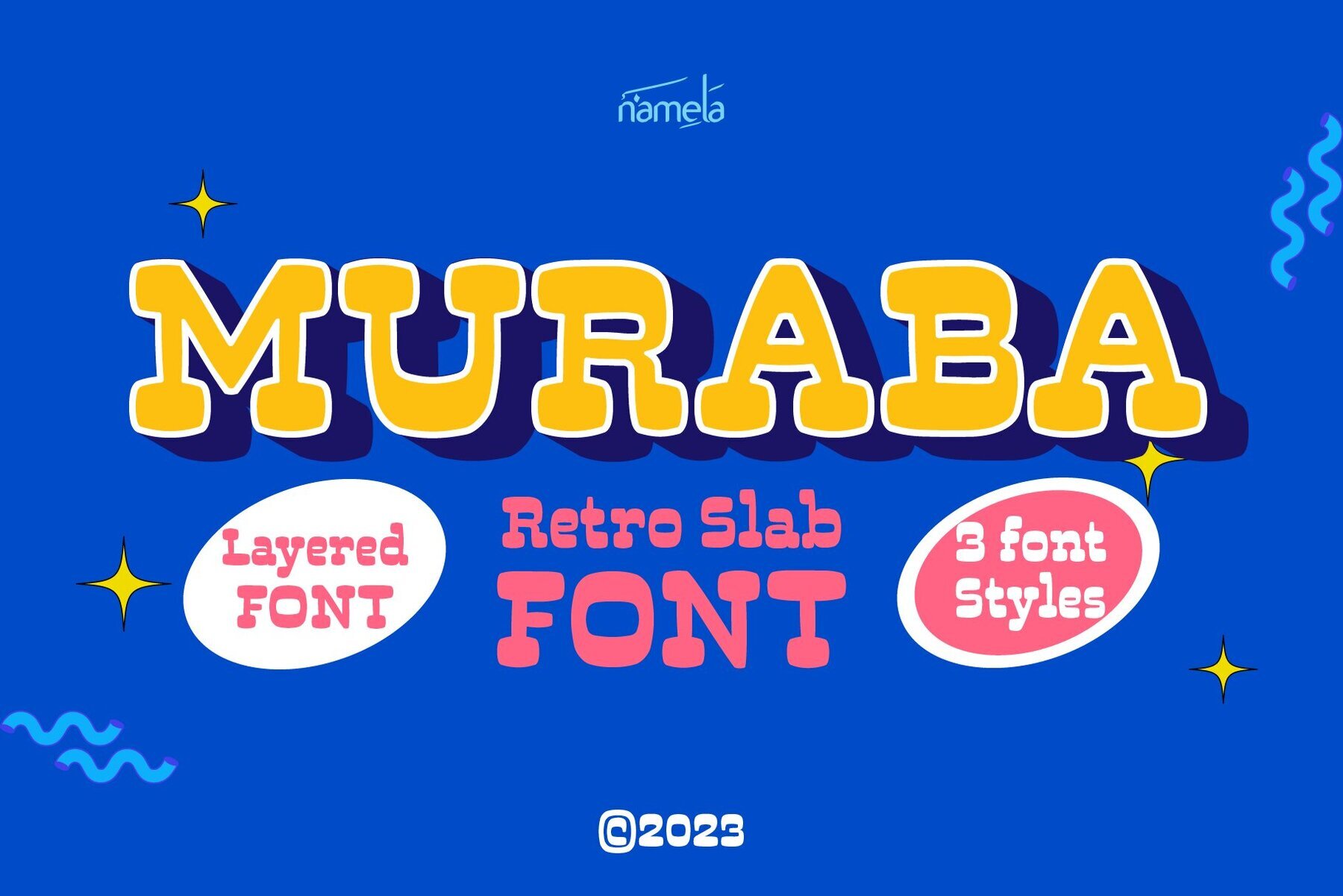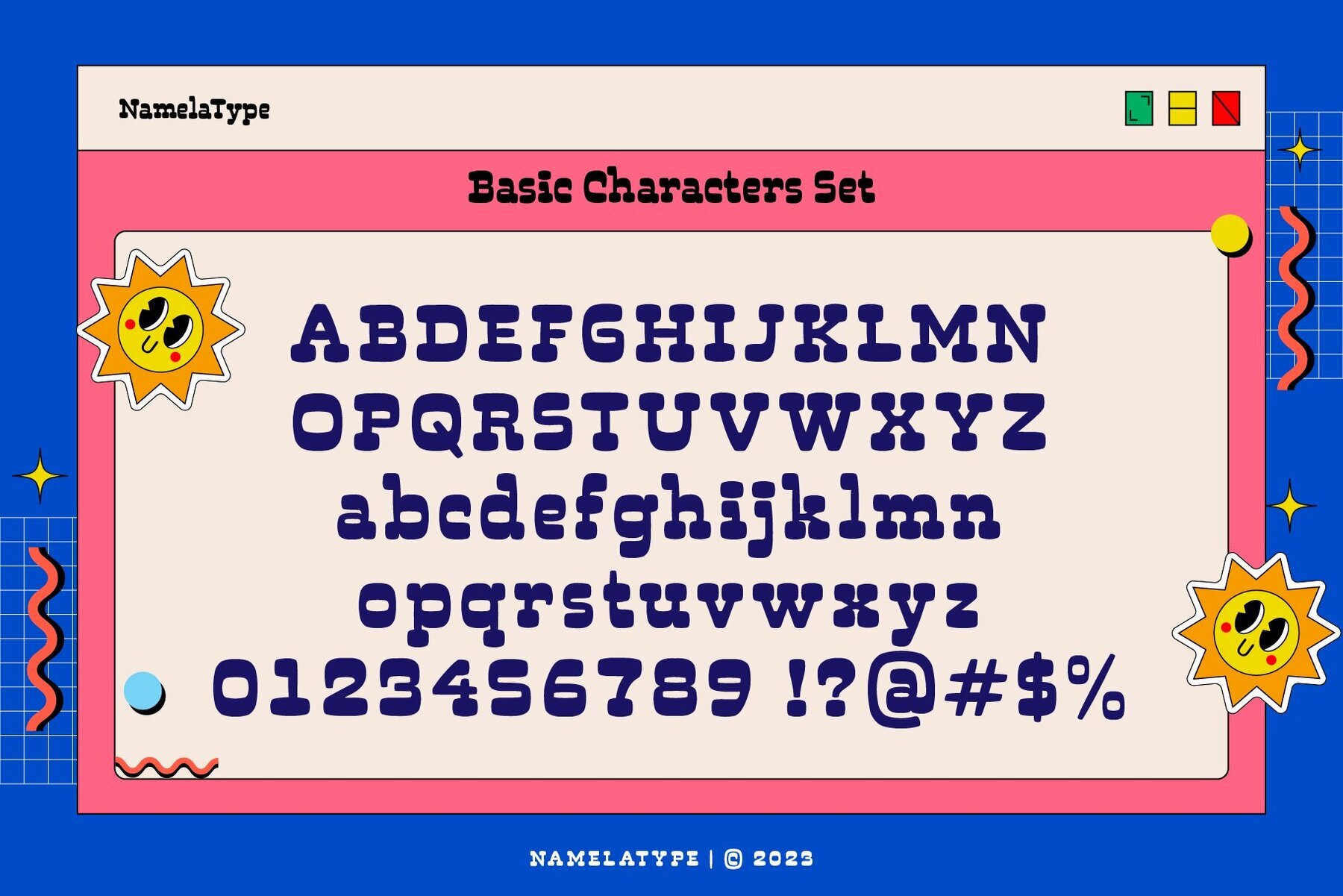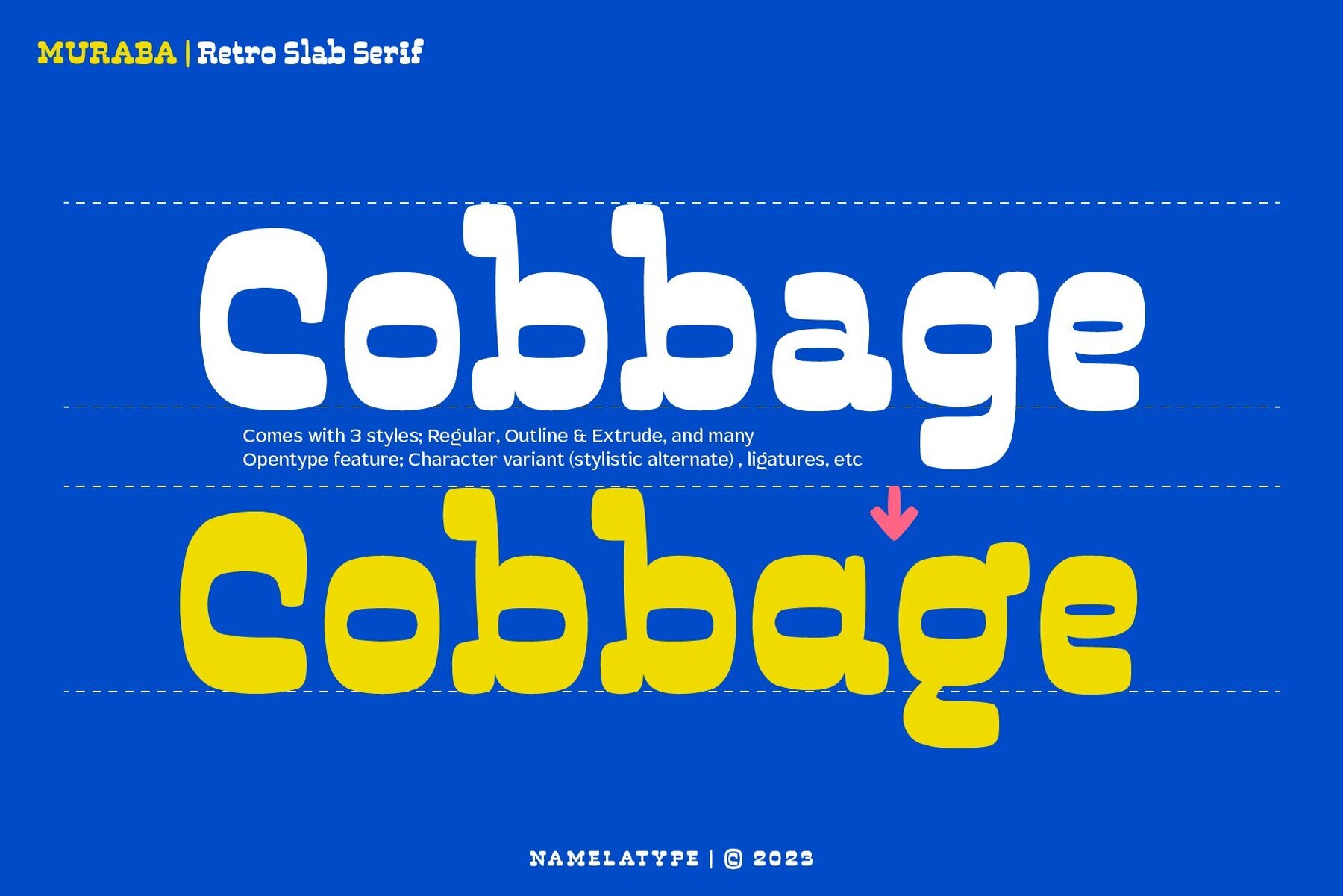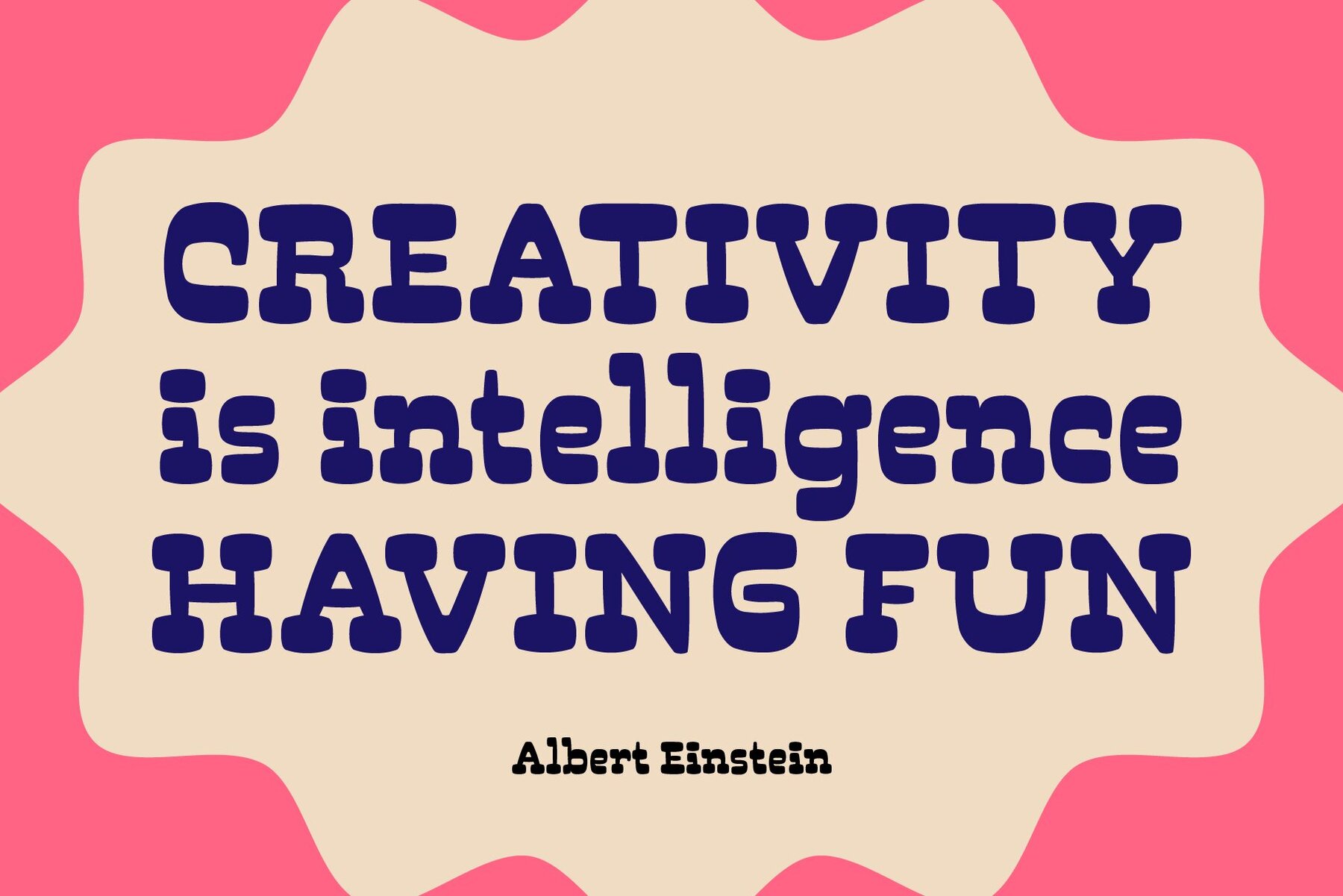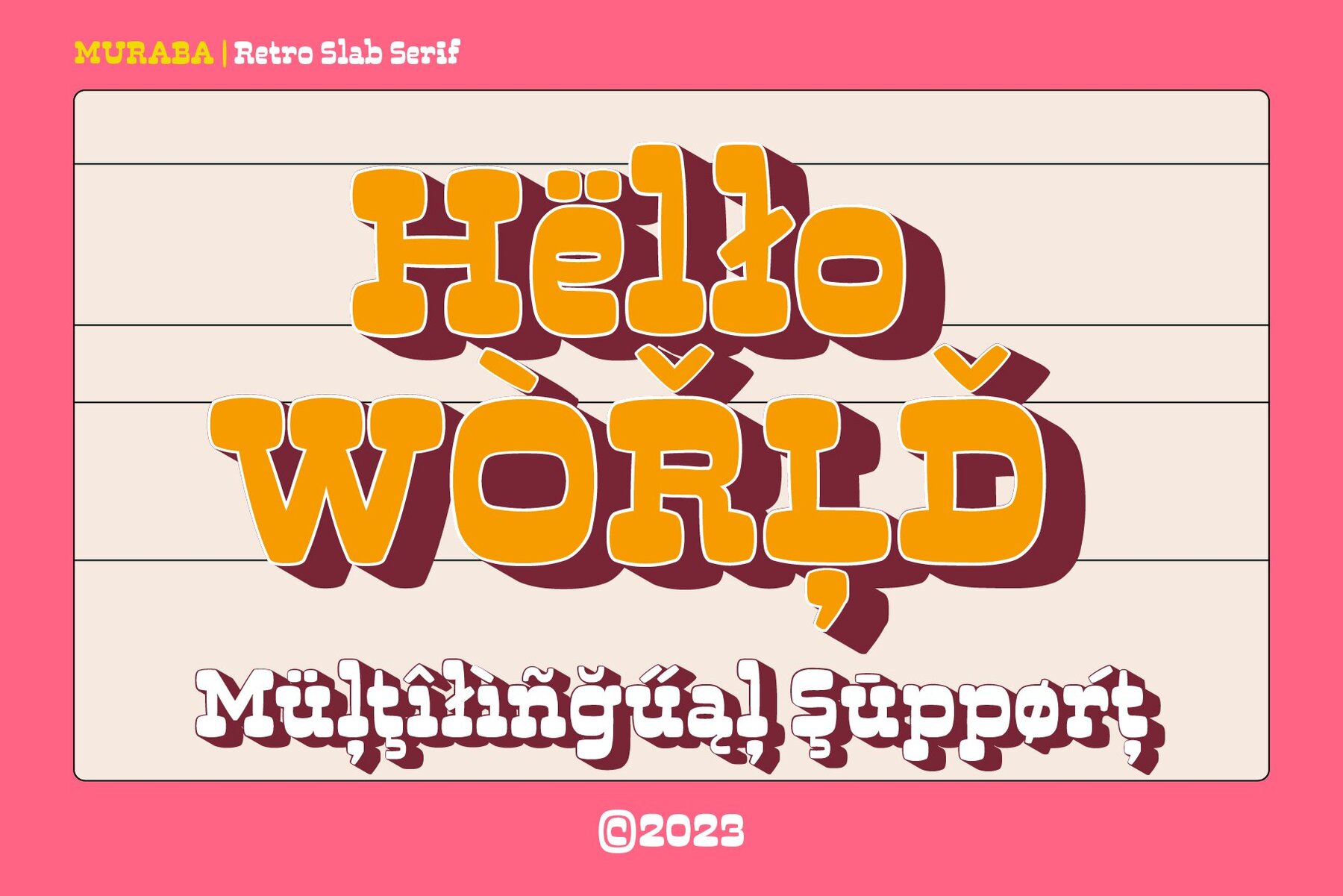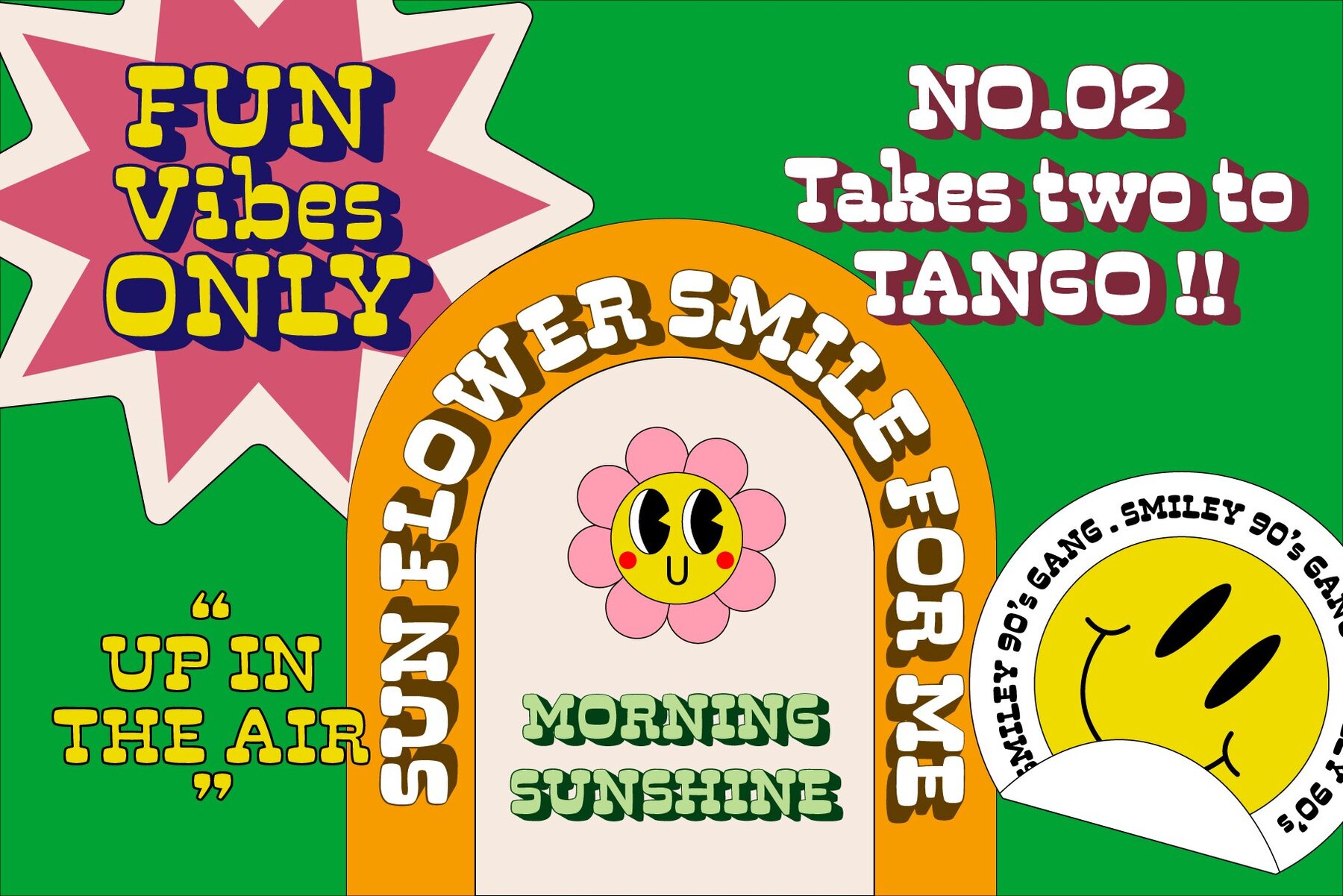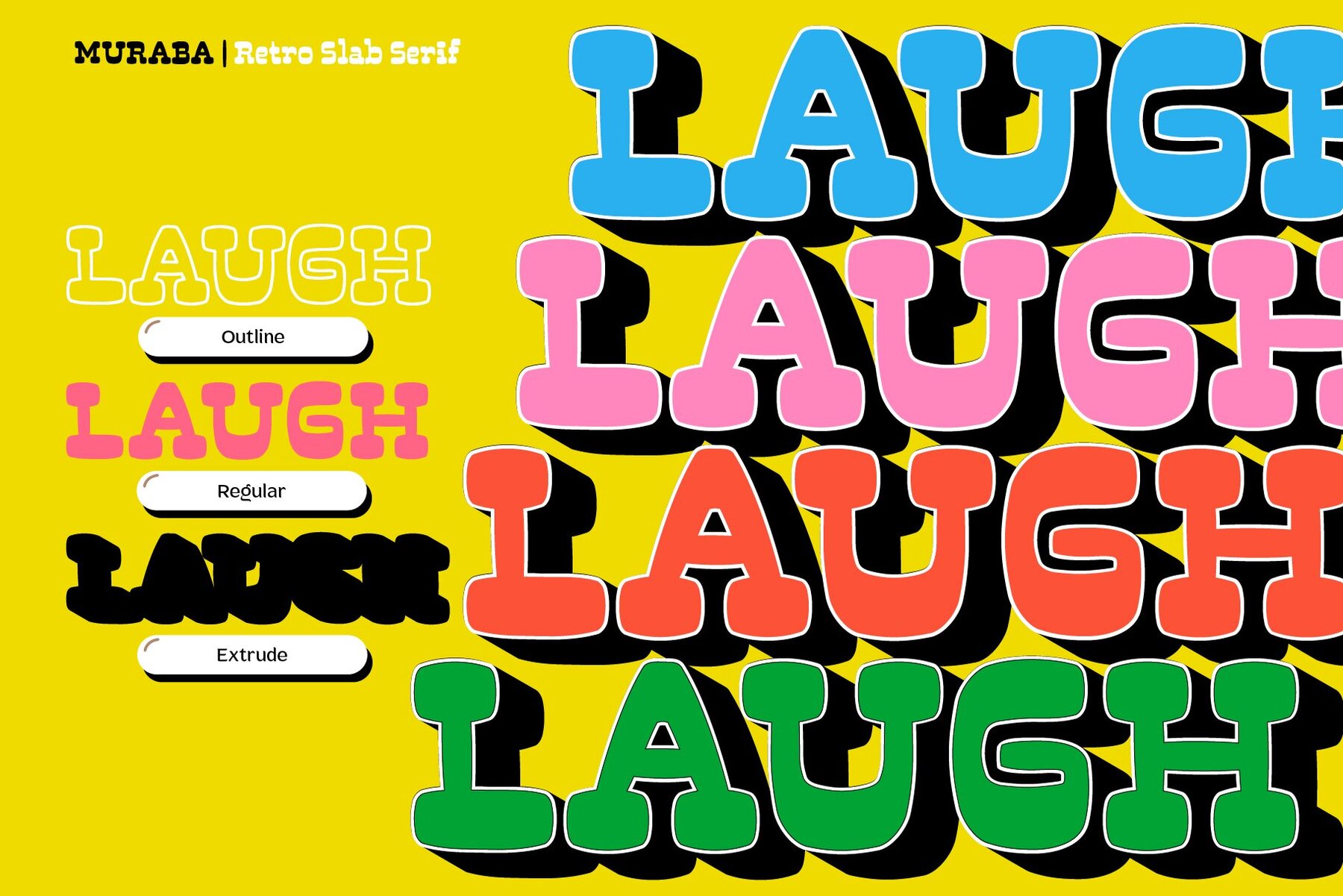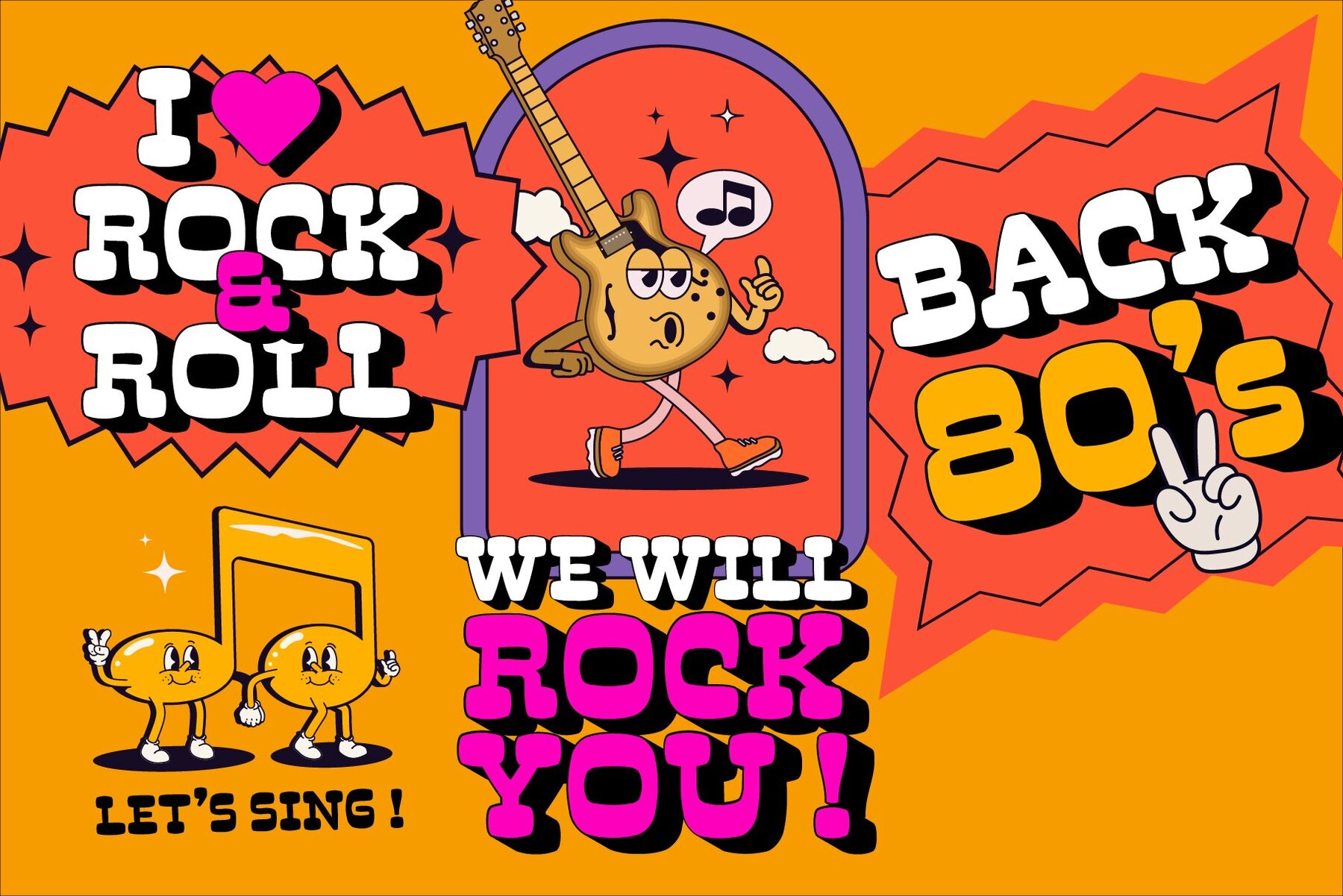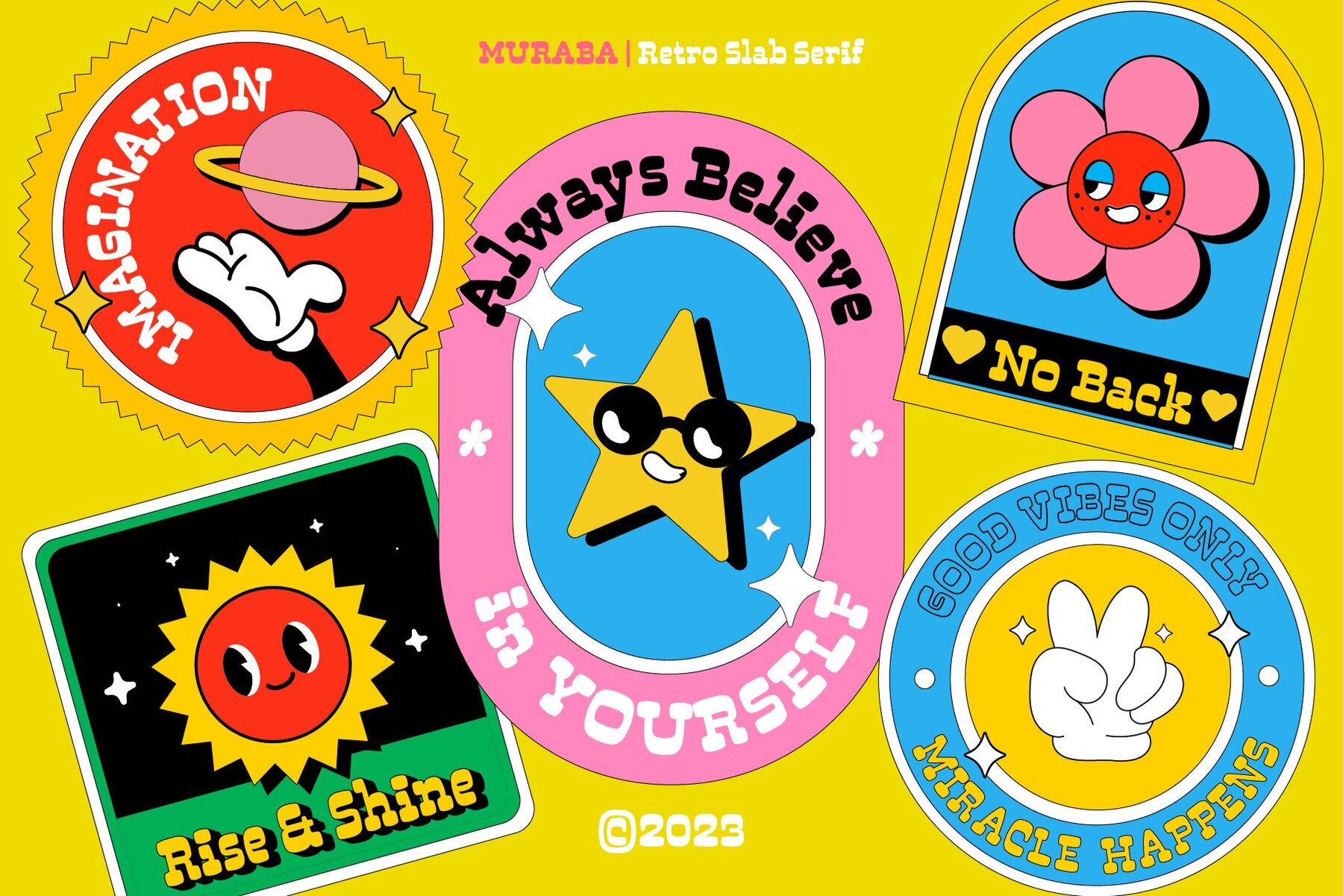
Muraba Font
Muraba Regular
Muraba Extrude
Muraba Outline
Muraba Retro Slab Font is a vintage serif display typeface that stands out with its bold, striking design. Its distinctive thick, squared-off serifs infuse each character with a touch of decorative elegance, making it ideal for creating eye-catching visuals. This font's unique character is perfect for adding a classic yet stylish touch to your design projects.
Versatile and adaptable, this font is suitable for a wide range of creative applications. Whether you're designing a memorable logo, crafting attention-grabbing headers, or emphasizing key information in display text, Muraba Retro Slab provides a robust solution. Its vintage charm and strong presence make it an excellent choice for designers looking to make an impactful statement.